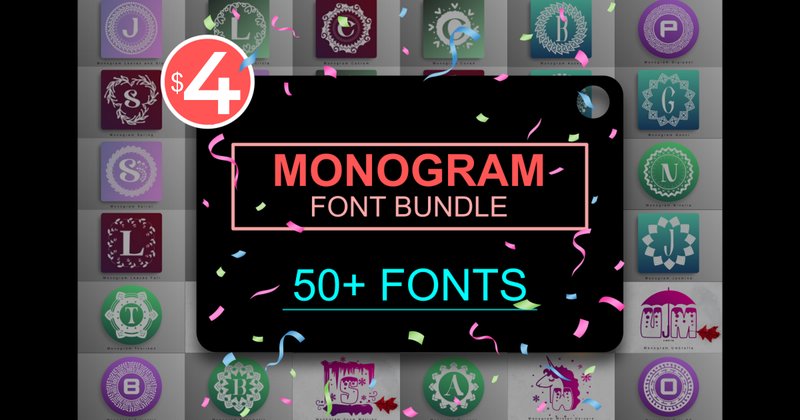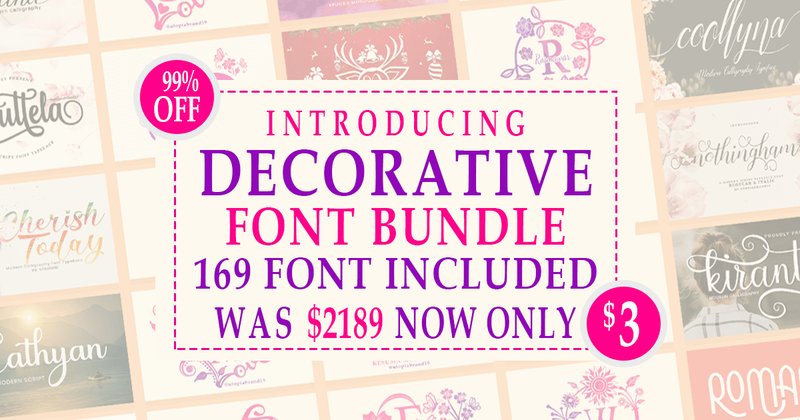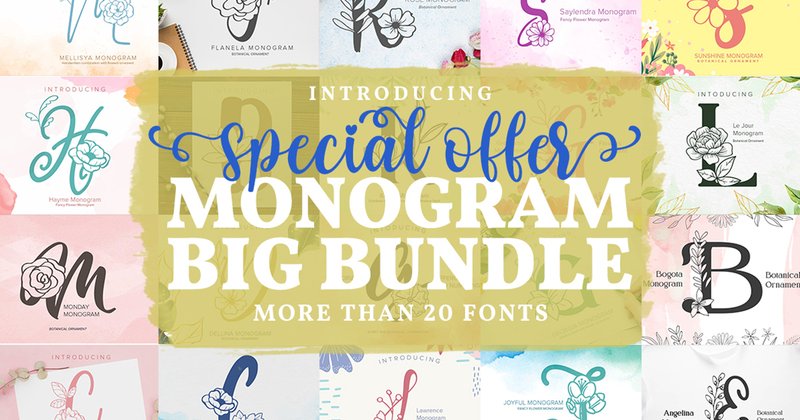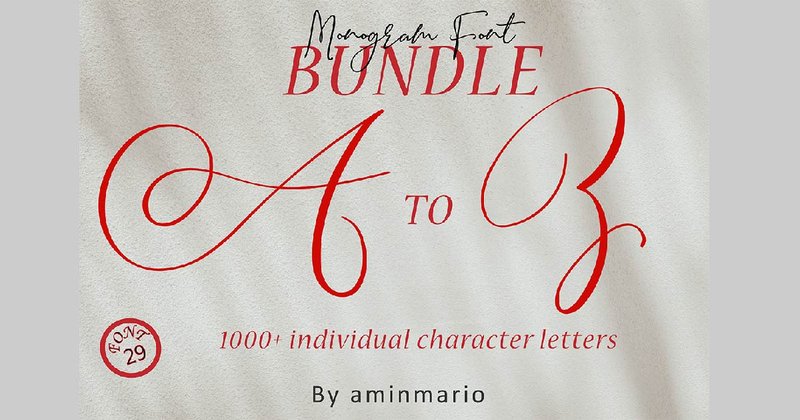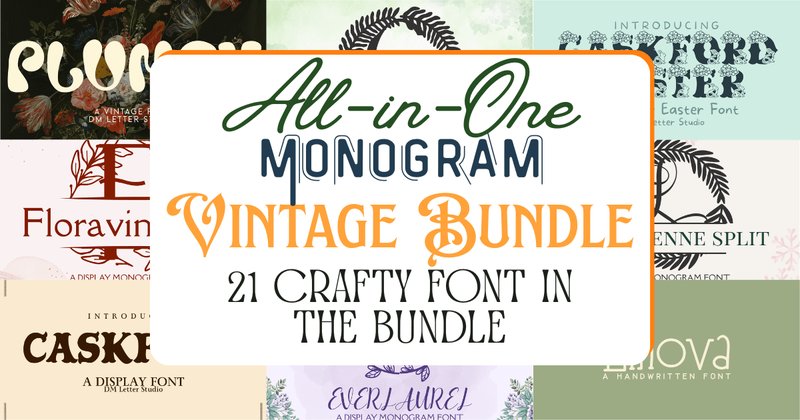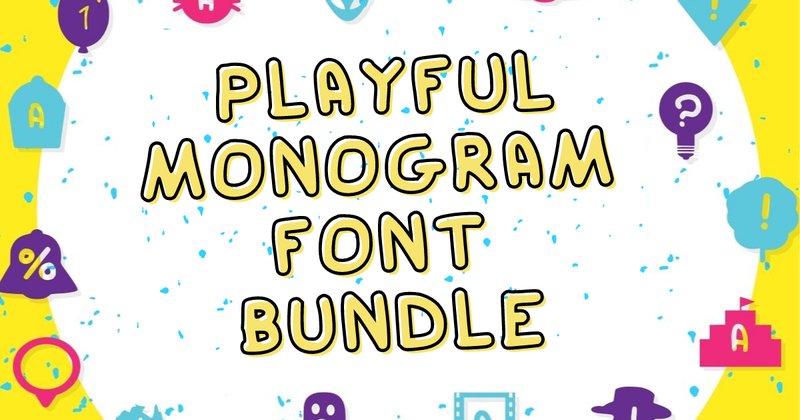
Client needs a custom monogram for wedding invitations by Thursday — and your font library has nothing that creates proper interlocking initials. These 6 bundles fix that: 51–1000+ monogram styles covering split-letter, interlocking, vine, playful silhouette, and classic serif. Install, pick, personalize.
| Bundle | Fonts / Styles | Monogram Type | Key Feature | Best For |
|---|---|---|---|---|
| Monograms A–Z (aminmario) | 1000+ capital variants | Per-letter files + ampersand | 26 dedicated letter fonts | Custom initial logos, wedding monograms |
| Playful Bundle (GraphicsBam) | 168 fonts with glyphs | Letter + silhouette glyph pairs | Animal, food, fashion themes per letter | Children’s, Etsy gifts, nursery decor |
| Decorative Bundle (utopiabrand19) | 169 fonts + monograms | Decorative + script + serif mix | Full typography library, not just monograms | Wedding stationers, boutique brand designers |
| Monogram Font Bundle (Bold Point) | 51 monogram fonts | Split-letter, interlocking, script, block | Single, double, triple-letter ready | Embroidery, engraving, vinyl, weddings |
| Big Bundle (Monogram Lovers) | Diverse styles | Interlocking + split + classic | Clean vectors for print and digital | Personalized gifts, apparel, stationery |
| All-in-One Vintage (DmStudio) | 7 monogram families + vintage fonts | Laurel, floral + standard + split | Seasonal bonus styles + vintage typefaces | Year-round branding, packaging, events |
Can’t decide? For maximum personalization depth: aminmario A–Z (1000+ variants). For Cricut vinyl and physical crafts: Bold Point 51-font bundle. For children’s and gift work: GraphicsBam Playful. For a full branding typography system: utopiabrand19 Decorative Bundle.
💍 Elegant & Formal — Wedding, Branding, Interlocking Classics
1. Monogram Font Bundle (Bold Point) — 51 Fonts Covering Split-Letter, Interlocking, Script & Modern Block, Single/Double/Triple-Letter Ready
51 fonts specifically covering all major monogram construction types — split-letter, interlocking, script, and modern block — in a single purchase. The practical advantage: it’s explicitly optimized for single, double, and triple-letter monogram layouts, which is the actual technical challenge that general script fonts don’t solve.What’s Inside:
- 51 distinct monogram fonts — split-letter, interlocking, script, and modern block styles
- Optimized for single, double, and triple-letter monogram construction
Best For:
- Embroidery digitizers and monogram shops producing personalized towels, robes, bags, and apparel — the split-letter and interlocking styles are specifically what embroidery clients expect and request
- Laser engraving and woodworking shops creating personalized gifts (cutting boards, frames, signs) who need clean vector letterforms that hold detail at any engraving size
- Vinyl crafters making personalized wedding gifts, home decor, and custom drinkware where a correct-format monogram (not just a fancy initial) is what buyers are paying for
2. Decorative Font & Monogram Bundle — 169 Fonts Including Scripts, Serifs & Ornate Monograms, Complete Stationery Toolkit
169 fonts combining decorative scripts, sophisticated serifs, and ornate monogram fonts in one purchase. Unlike pure monogram bundles, this one provides the full typographic system for a stationery suite: headline script, body serif, and monogram emblem all from one download without hunting for compatible companion fonts.What’s Inside:
- 169 premium fonts — romantic/elegant scripts + sophisticated serifs + specialized monogram fonts · curated for typographic hierarchy in a single cohesive system
Best For:
- Wedding stationery designers who need the full font toolkit for an invitation suite — script for headlines, serif for body text, monogram for the emblem — without sourcing each separately and hoping they look compatible
- Boutique brand designers building complete visual identities who need both the logomark typography (monogram) and the supporting text system (scripts and serifs) from one consistent source
- Stationery print shops who produce book covers, magazine layouts, and social media quote graphics alongside wedding work and need a comprehensive font library that covers multiple editorial contexts
3. Monogram Fonts Big Bundle (Monogram Lovers) — Diverse Interlocking & Split Styles, Clean Vectors for Digital & Print